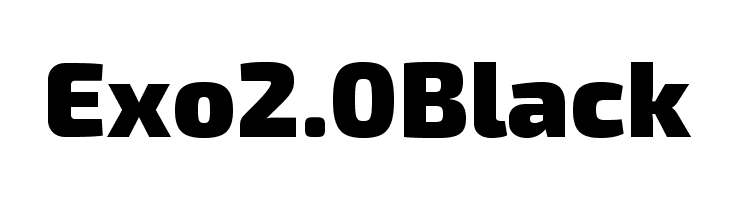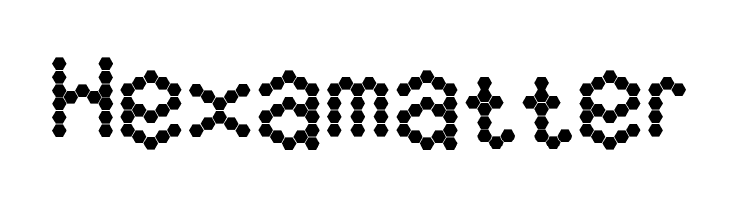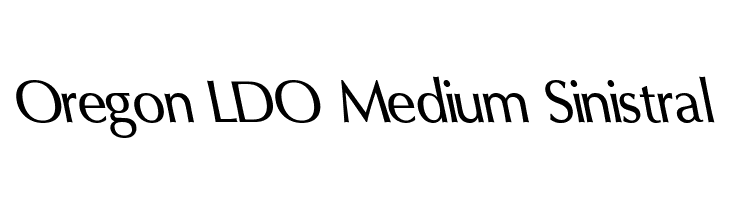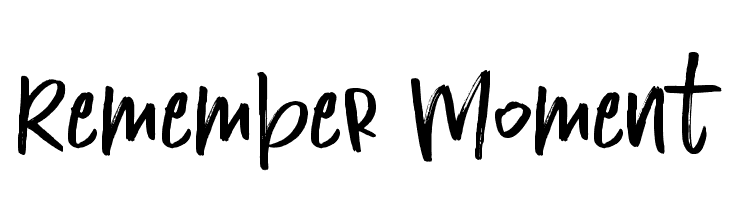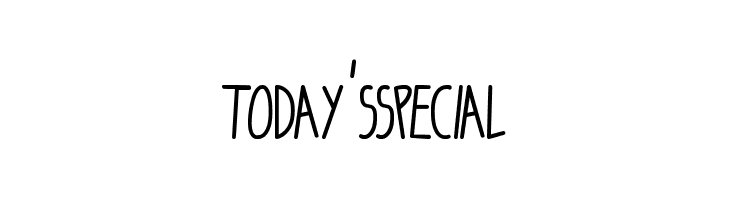
A modern, slightly slanted font with balanced proportions and clear numerals.
( Hazel Abbiati - diamondidiocy.tumblr.com )
A pixelated, retro-style font with a blocky, digital appearance.
A playful, handwritten font with tall, narrow letters and a casual style.
A bold, italicized font with a dynamic halftone effect and angular design.
A bold, angular font with dynamic slashes for a modern, edgy style.
A bold, brush-style font with a lively and artistic flair.
( Alex Mihaylov )
A geometric font made from hexagonal shapes, offering a modern and digital aesthetic.
( Fonts by Omnibus Type )
A modern, geometric sans-serif font with a clean and uniform appearance.
( Fonts by Xerographer Fonts )
A hand-drawn, textured font with an artistic and casual style.
A bold, angular, and condensed italic font with a modern edge.